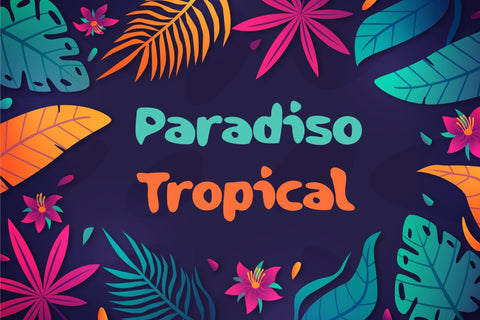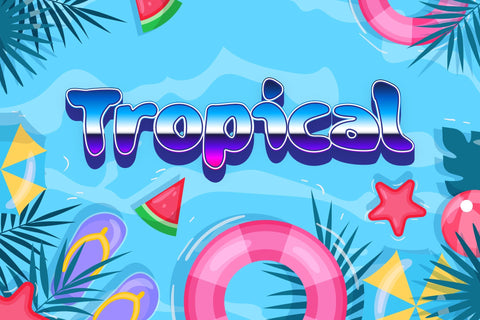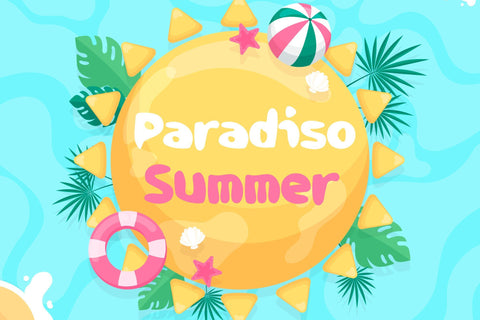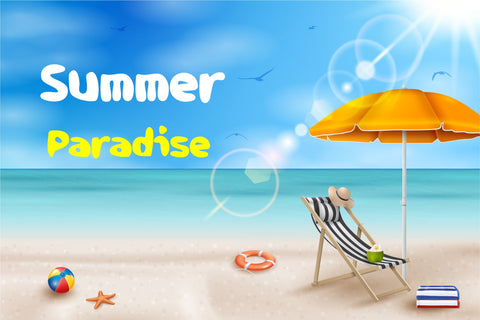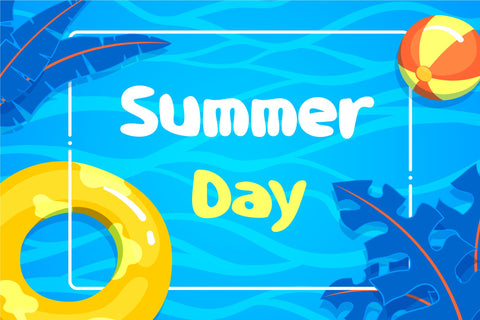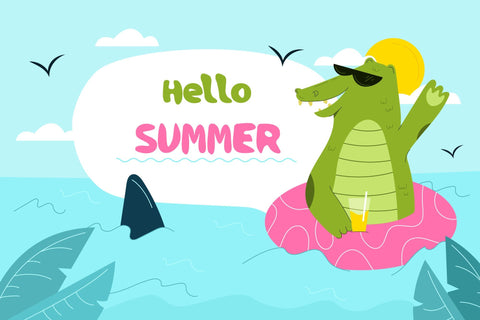
Paradiso Tropical Summer Font
Paradiso Tropical is a cute and whimsical display font. Whether you are using it for cartoon-related designs, children games, quotes, titles, brand names, book covers, posters, or just any creation that requires a touch of joy, this font is a great choice.
This font is perfect for a summer or beach themed design. It looks like a happy, fun font. Overall, it is a great font for summertime, it was created with a tropical theme in mind.